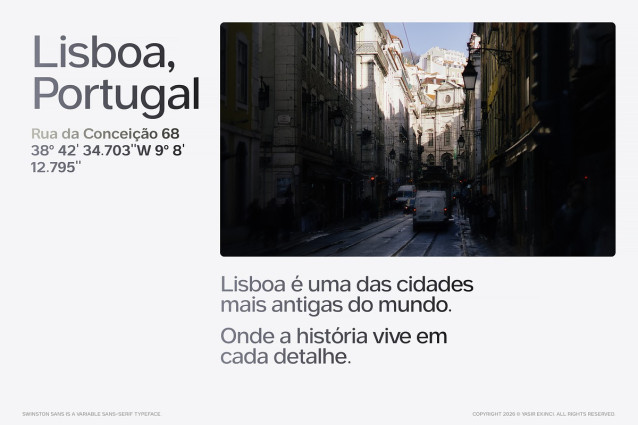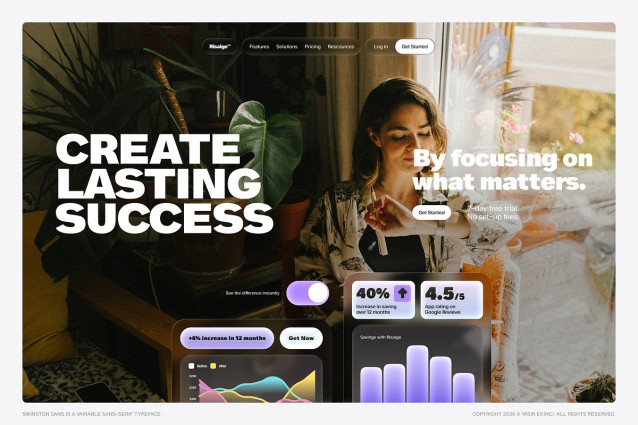
Swinston Sans Font
Swinston Sans Font In a digital landscape drowning in neutrality, how do you design a typeface that feels engineered enough for code, yet human enough for conversation? For the last decade, sans-serif typography has been dominated by invisibility. Fonts like Inter, Helvetica Now, and countless Neo-Grotesques have become the default language of digital design. They’re competent. They’re safe. They’re everywhere. But as we enter the era of generative AI, spatial computing, and hyper-personalised digital experiences, “neutral” is no longer enough. We don’t need fonts that disappear. We need fonts that translate. This is where Swinston Sans begins.